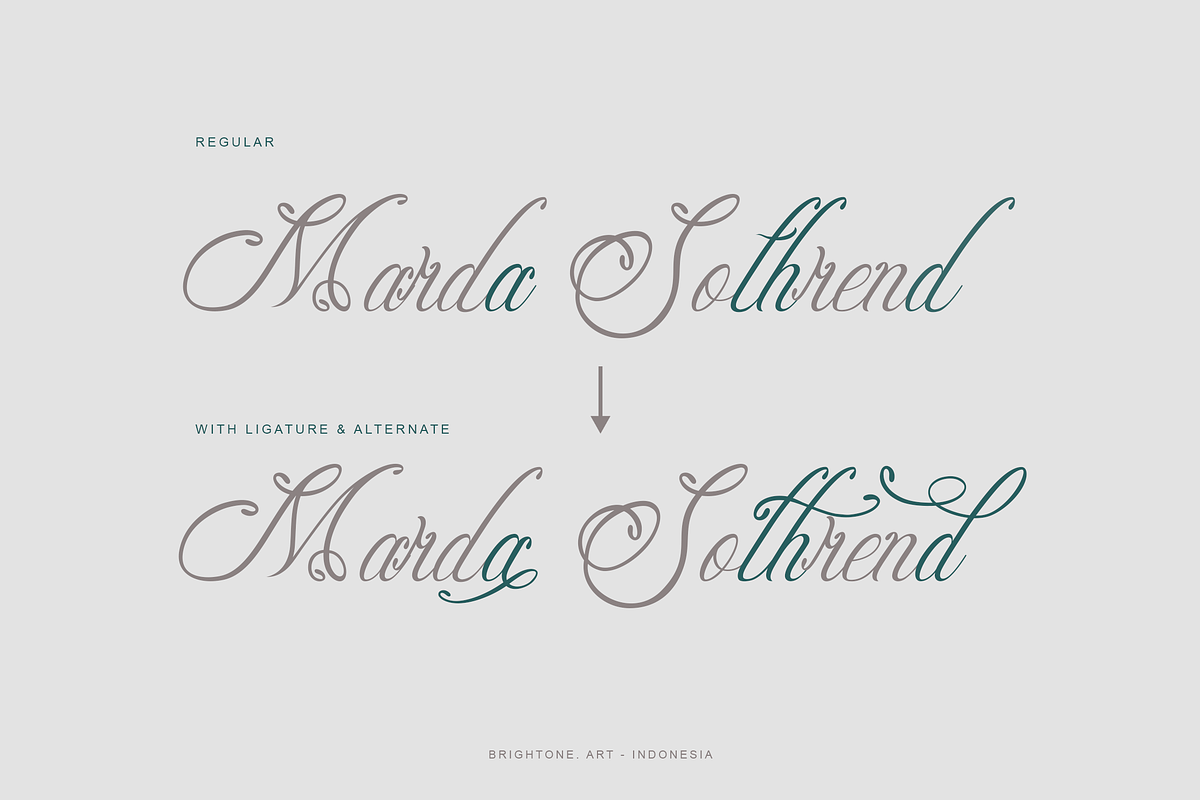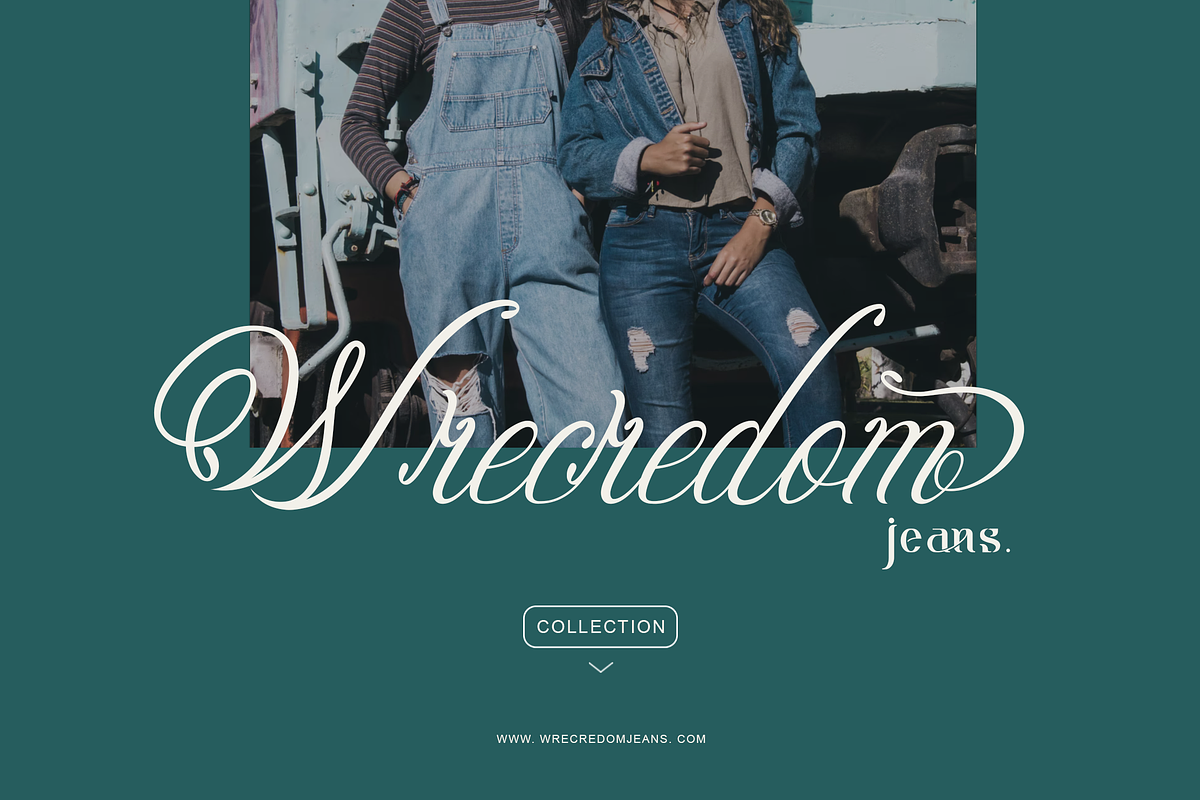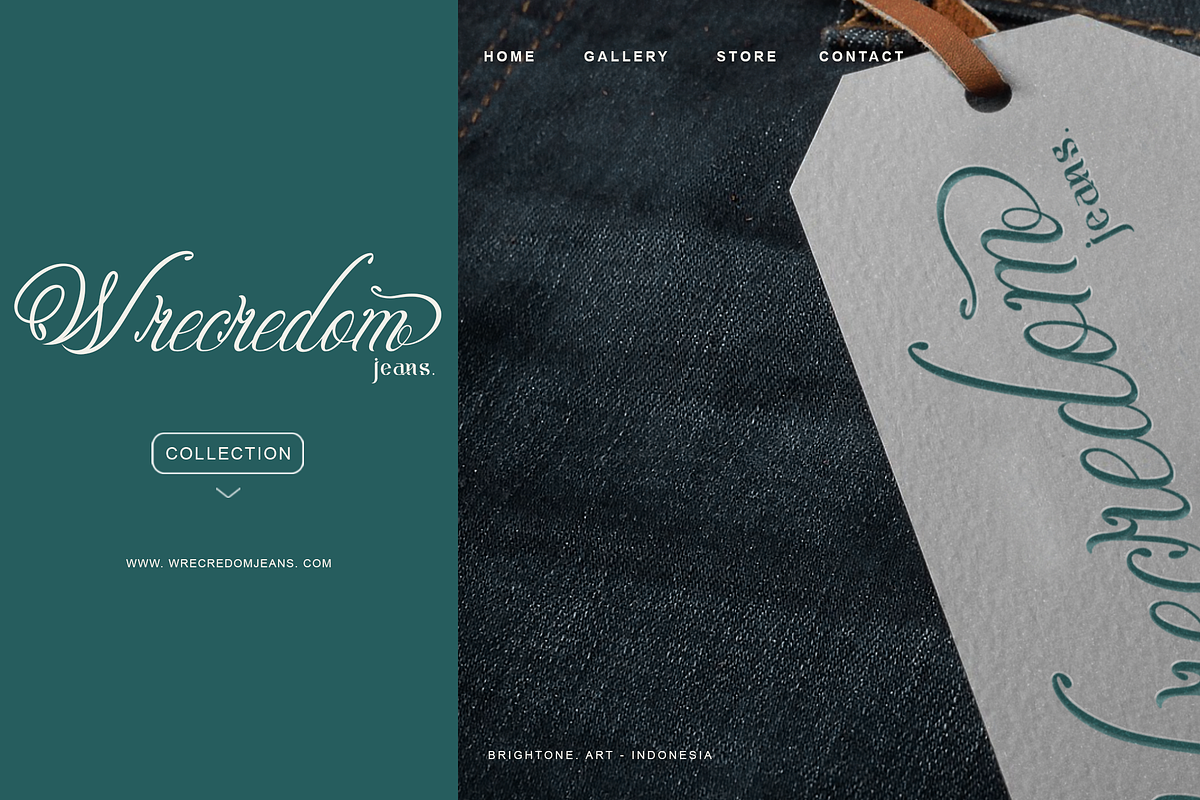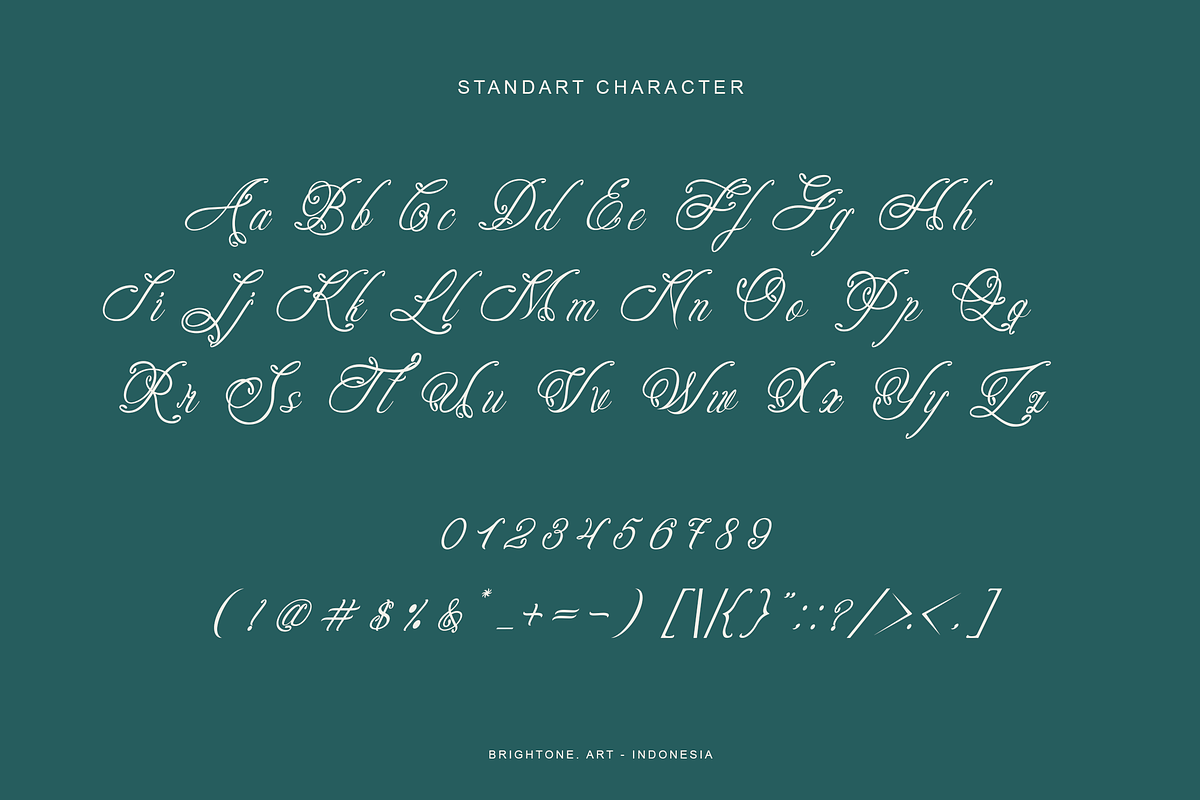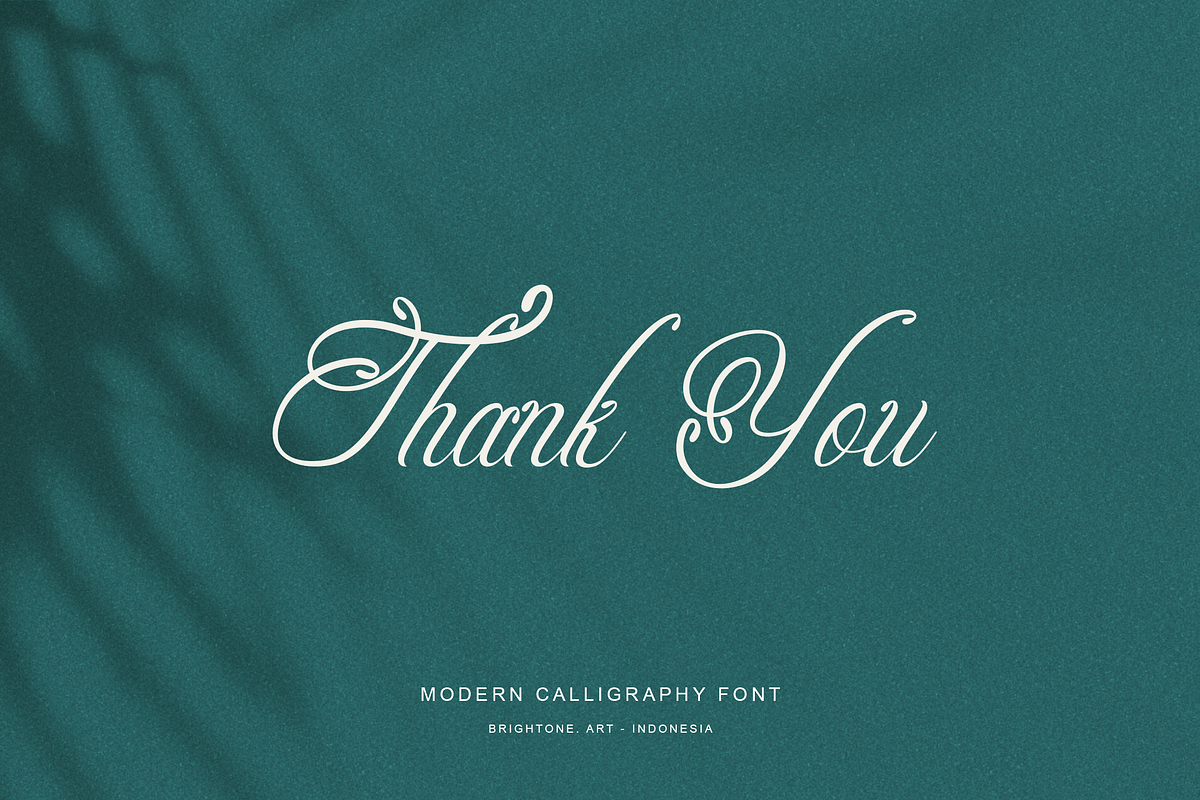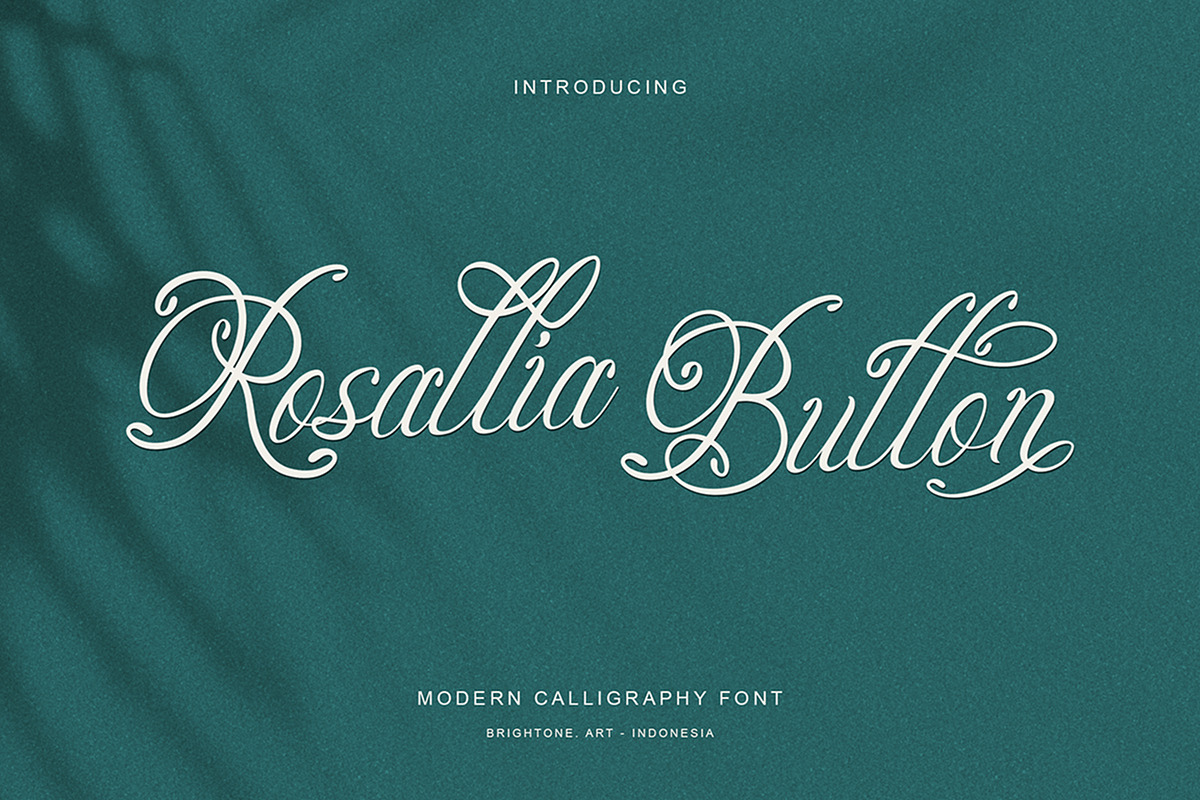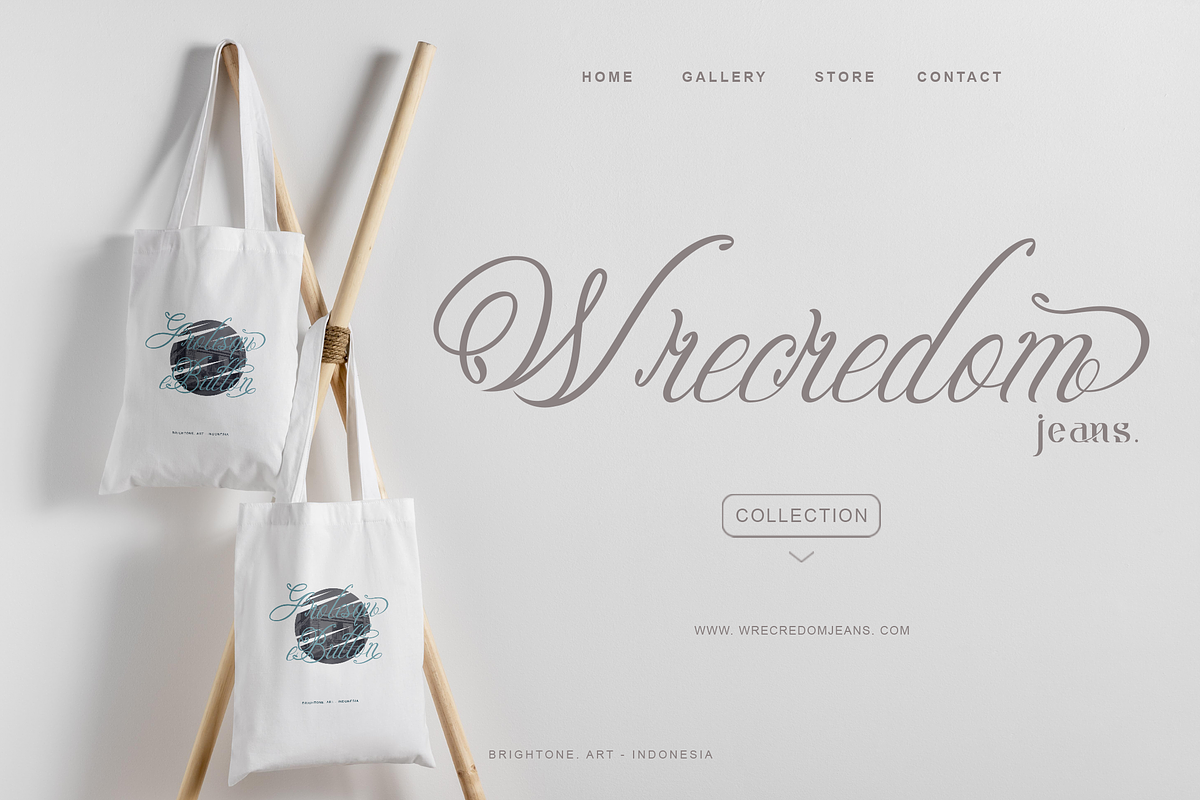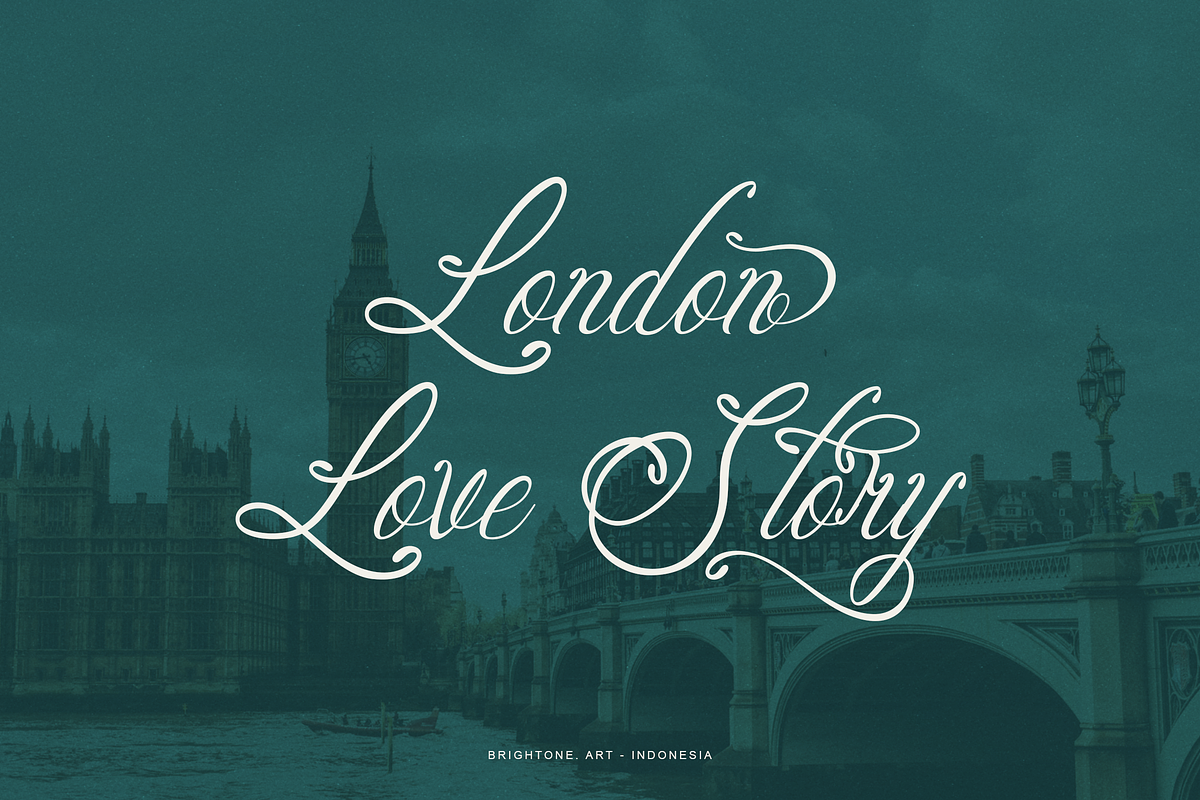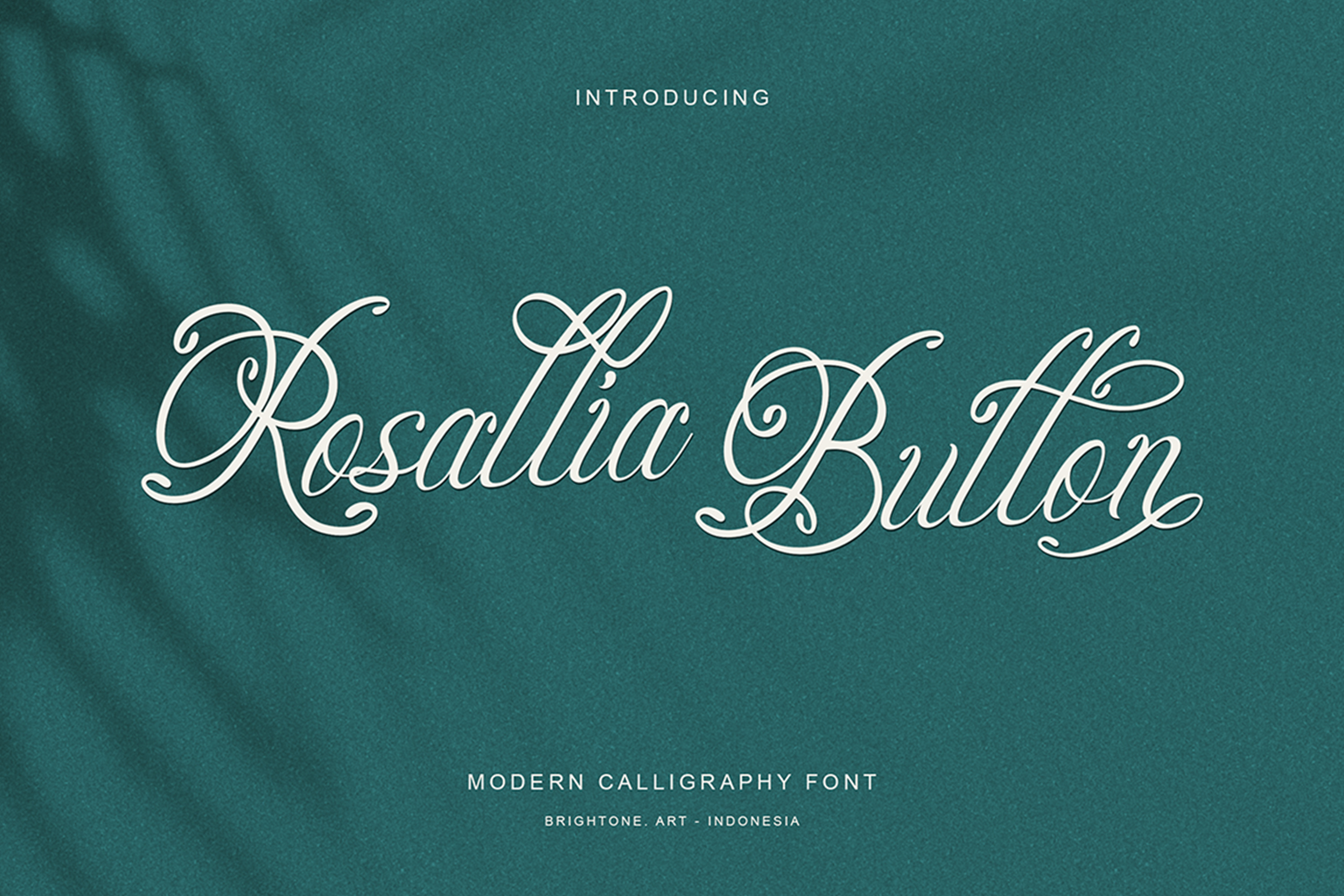
Rosallia Button - Beauty Script Font
Rossallia Button is script style font includes uppercase letters, numerals, a large range of punctuation, multilingual support and stylish alternate lowecase with good swash. Professional script font for your logo lettering, shirt design, Cosmetics label, magazine, sticker, branding, etc